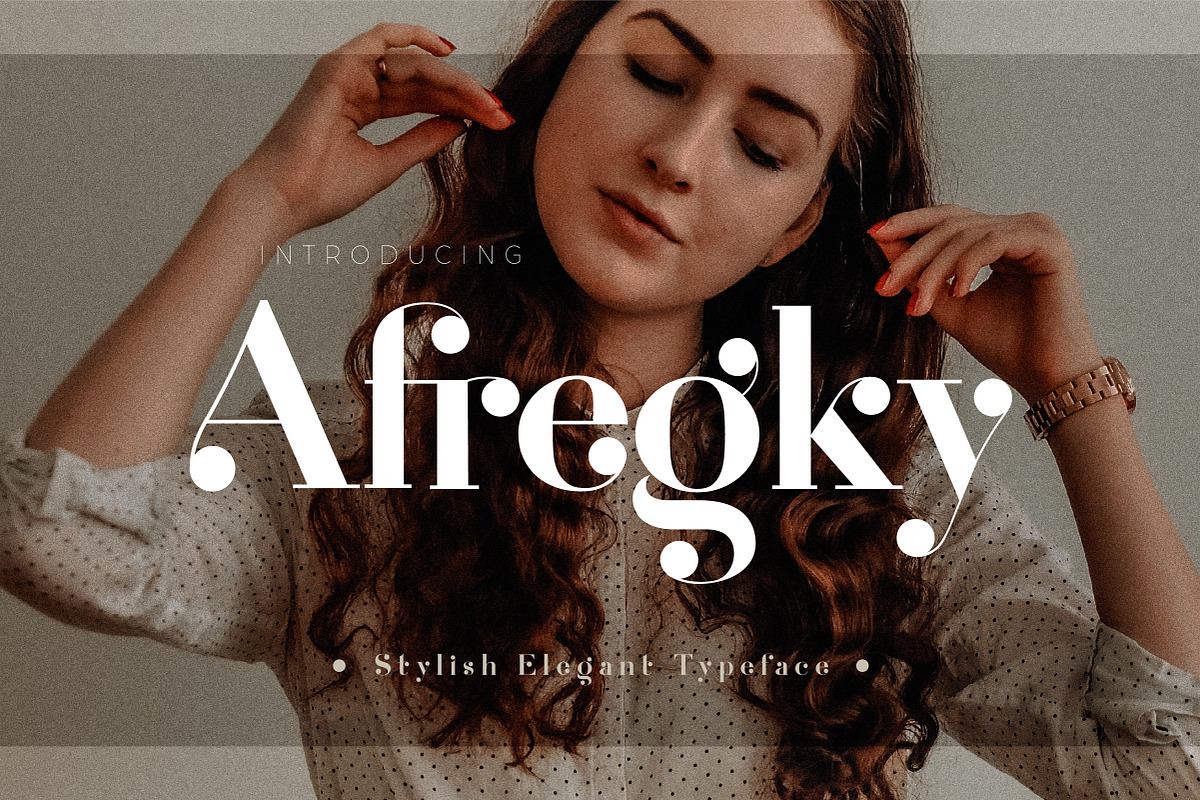
Afregky Font Free Download is a unique and artistic typeface with a bold personality and modern edge. Its striking letterforms blend experimental design with creative flair, making it perfect for posters, album covers, branding, fashion editorials, and projects that demand visual impact and individuality.
Afregky stands out with its abstract curves and unconventional structure, offering a fresh voice for designers who love to break the mold. It includes uppercase and lowercase letters, punctuation, multilingual support, and full compatibility with both Mac and Windows systems.